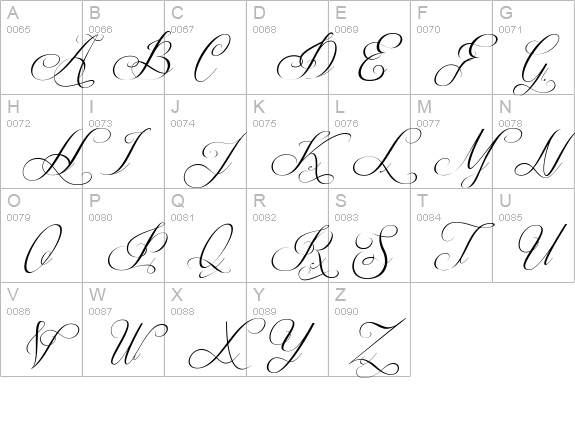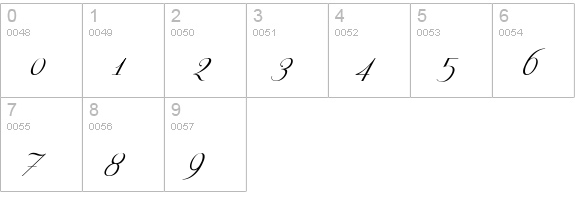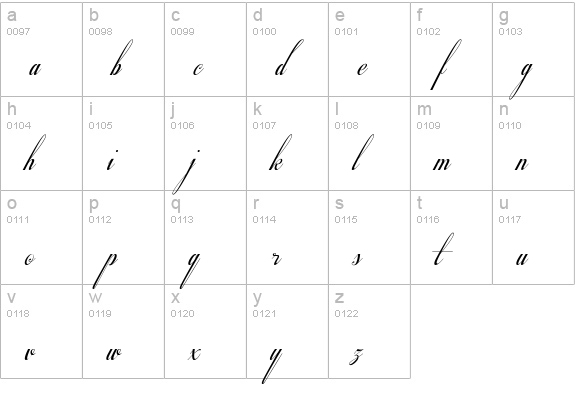
Respective Slanted Font Details
Respective Slanted font is a visually stunning typeface that adds a touch of elegance and sophistication to any design project. With its unique slanted style, this font exudes a sense of modernity and creativity, making it perfect for a wide range of applications. Designed with precision and attention to detail, Respective Slanted font offers a sleek and sleek appearance that is sure to captivate and engage your audience. Its slanted letters create a sense of movement and dynamism, adding a touch of excitement to your designs. But what makes Respective Slanted font even more appealing is the fact that it is free! Yes, you read that right. This fantastic font is freely available to download at FontsMarket.com. Now, you can add a touch of professionalism and style to your projects without breaking the bank. Whether you're working on branding materials, websites, posters, or any other design project, Respective Slanted font will elevate your work to the next level. Its clean lines and unique slant make it a versatile choice that can be used for both headers and body text, ensuring consistency and visual harmony throughout your design. So why wait? Download Respective Slanted font for free at FontsMarket.com and unleash your creativity today. With this remarkable typeface in your toolkit, you'll be able to create stunning designs that will leave a lasting impression on your audience. Don't miss out on this incredible opportunity to enhance your design projects with Respective Slanted font.